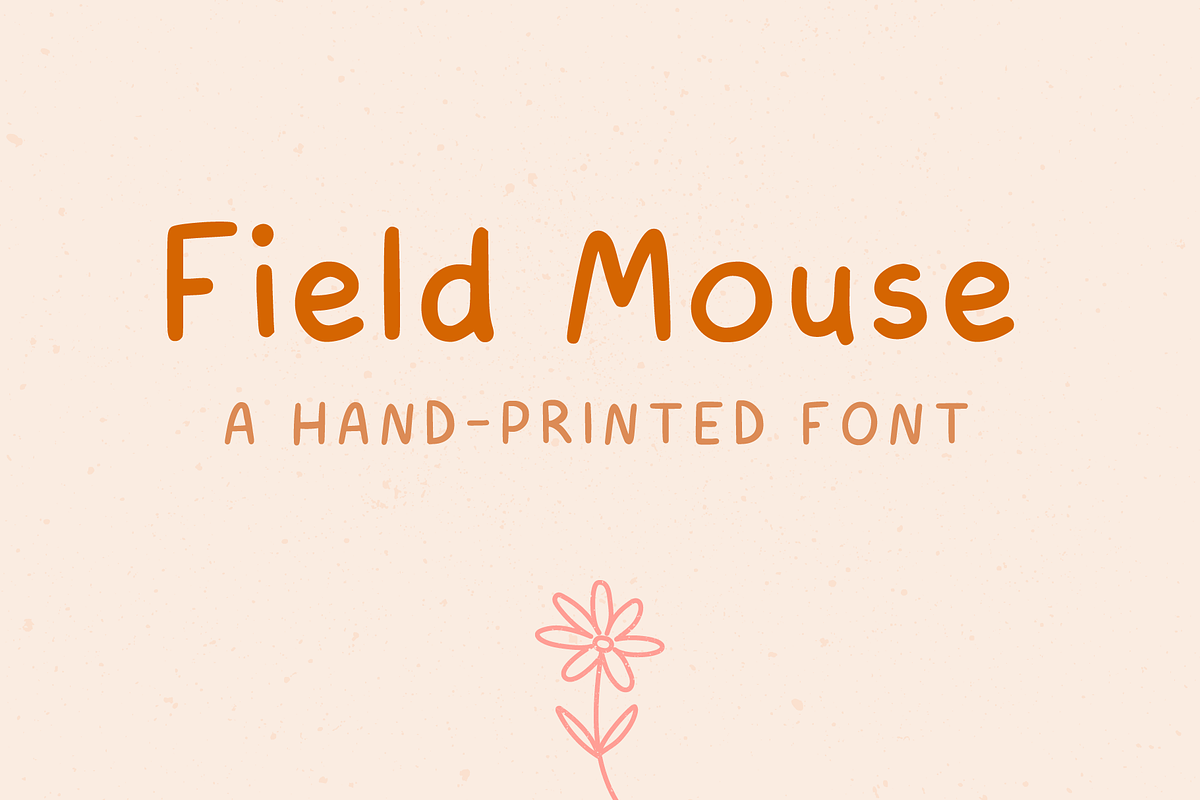
Field Mouse | A Hand-Printed Font Free Download is a charming and organic typeface that captures the warmth and imperfection of real handwriting. Designed to feel natural and approachable, this font is perfect for DIY-style branding, product packaging, invitations, greeting cards, children’s books, and social media content with a handmade touch.
Its playful letterforms and subtle texture make it stand out in both print and digital formats. Field Mouse includes uppercase and lowercase characters, punctuation, multilingual support, and is fully compatible with both Mac and Windows systems.